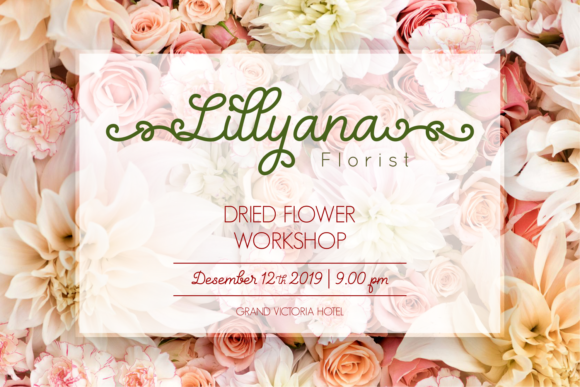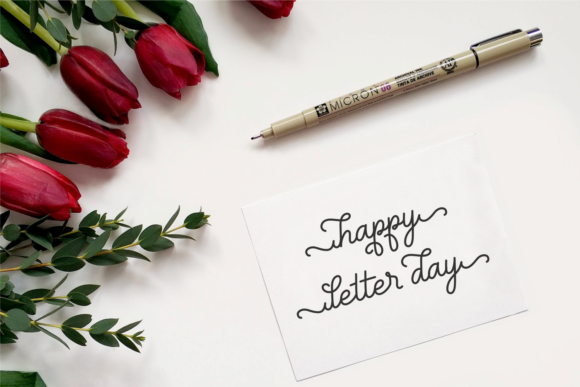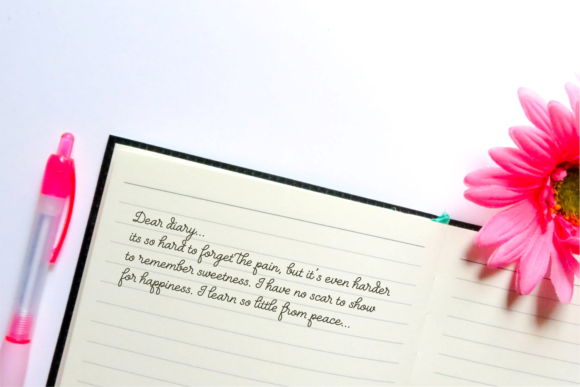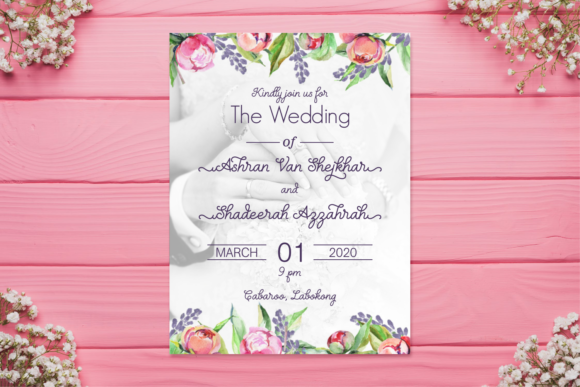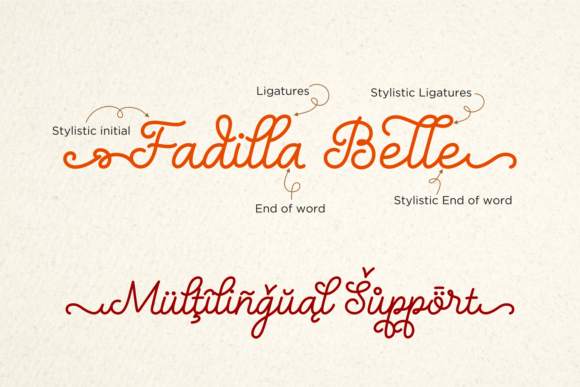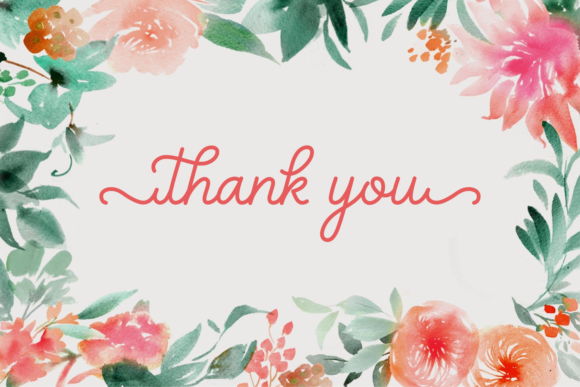
Introduction to Nellyana Script Font
Have you ever found yourself stuck in a creative rut, unable to convey the emotions and feeling you want to express through your design? For many of us, this is a familiar experience. But what if I told you there’s a design resource that can help unlock your creative potential and bring your vision to life?
Meet the Nellyana Script Font, a stunning modern monoline script inspired by the beauty of tulips. With its beautiful ornaments and delicate lines, this font is the perfect addition to any high-quality design project. Whether you’re a seasoned designer or just starting out, the Nellyana Script Font is a valuable asset that can help take your work to the next level. And the best part? It’s available for free download, making it a must-have for any design enthusiast.
With a transparent background and high-quality design, the Nellyana Script Font is the perfect tool for any creative project. Say goodbye to design frustration and hello to endless possibilities with this incredible font.
Key Features of Nellyana Script Font
- Unique, elegant script font suitable for creative projects, wedding invitations, and other design resources.
- High-quality font with a transparent background, ideal for digital designs and free download.
- Perfect for use in logos, titles, and headings, adding a touch of sophistication to your design projects.
Honest Review: Nellyana Script Font
I recently had the chance to work with the Nellyana Script Font and I must say, it’s been a delightful experience. This beautiful script font is perfect for adding a touch of elegance to any creative project, from wedding invitations to blog titles.
Here are some things that I think work really well:
- ✨ High-quality design: The Nellyana Script Font has a smooth, flowing design that’s perfect for making a statement.
- ⚠️ Limited font weights: The font only comes in a few weights, which can make it difficult to achieve the perfect level of boldness or subtlety.
- ⚠️ Limited language support: The font doesn’t support all languages, which can be a problem if you need to use it for a multilingual project.
Overall, I’m really impressed with the Nellyana Script Font. While it has a few limitations, its high-quality design and free download make it a great addition to any design resource collection.
Nellyana Script Font
The Nellyana Script Font is perfect for wedding invitations, birthday party invitations, and other creative projects that require a touch of elegance and sophistication. It’s also great for designing logos, business cards, and other marketing materials.
Tips for Getting the Most Out of the Nellyana Script Font
To get the most out of the Nellyana Script Font, be sure to experiment with different font sizes, colors, and styles. You can also combine the font with other design elements, such as images and graphics, to create a unique and eye-catching design.